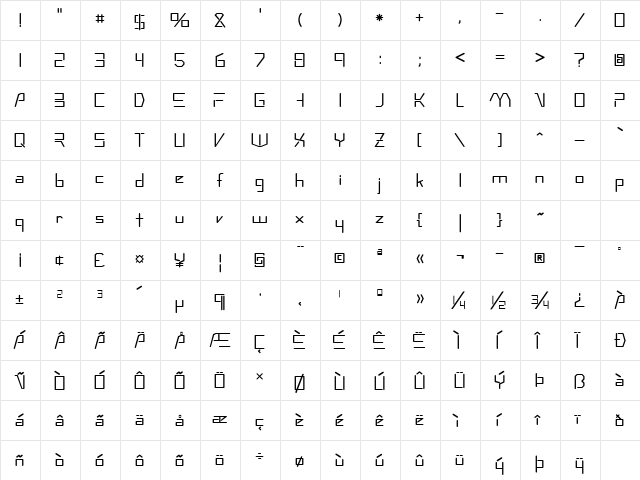
Andros Regular
Design Context for Andros Typeface
Andros is a composed and adaptable typeface that performs quietly and consistently across a wide range of design contexts.